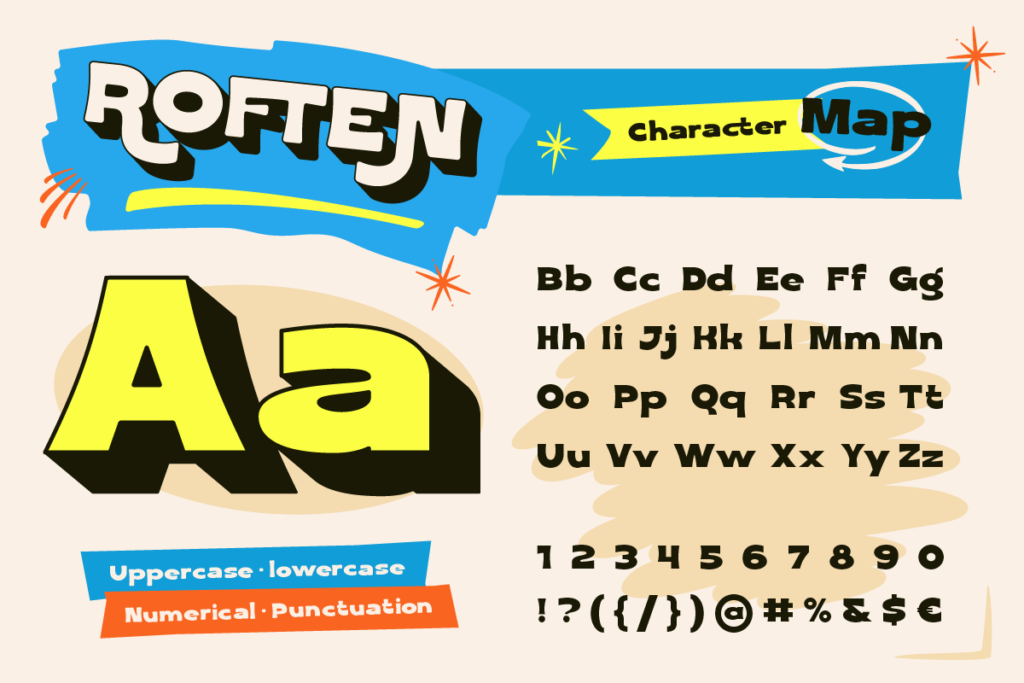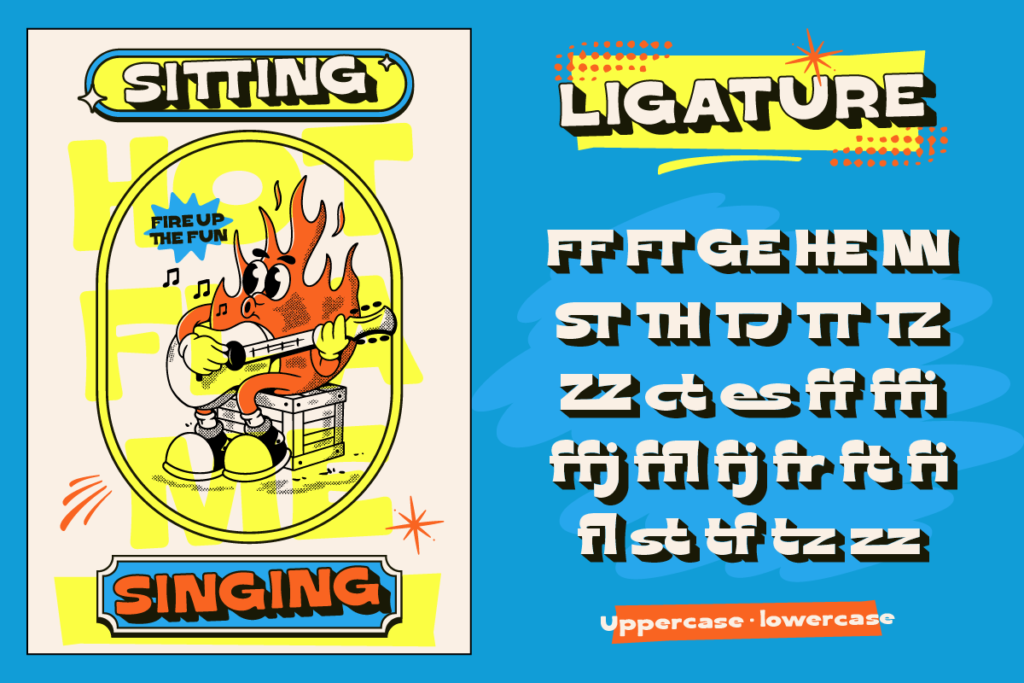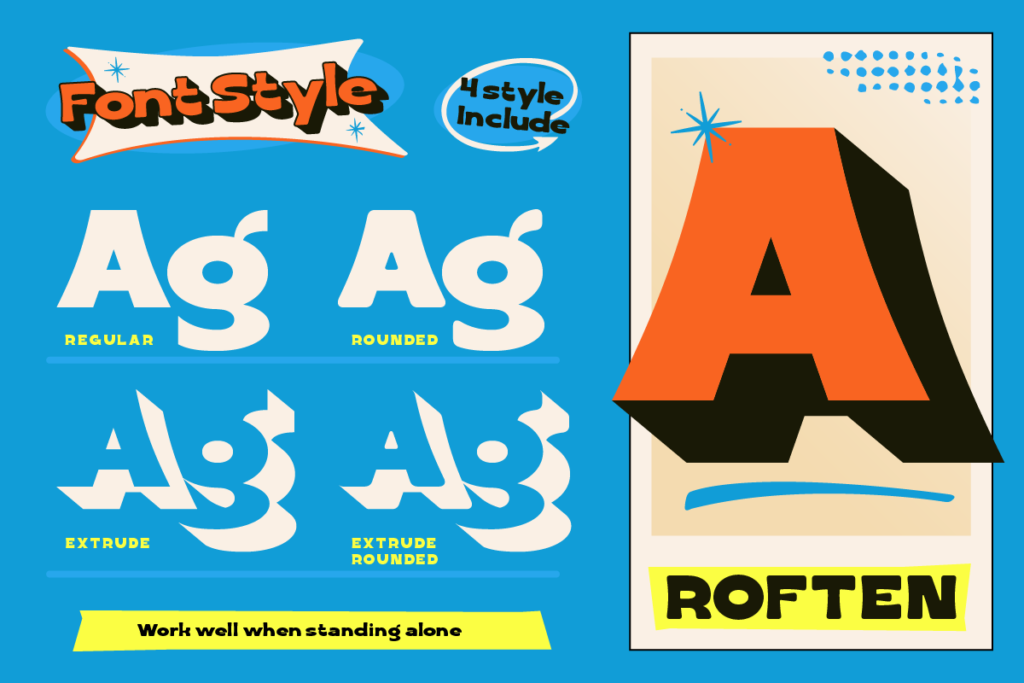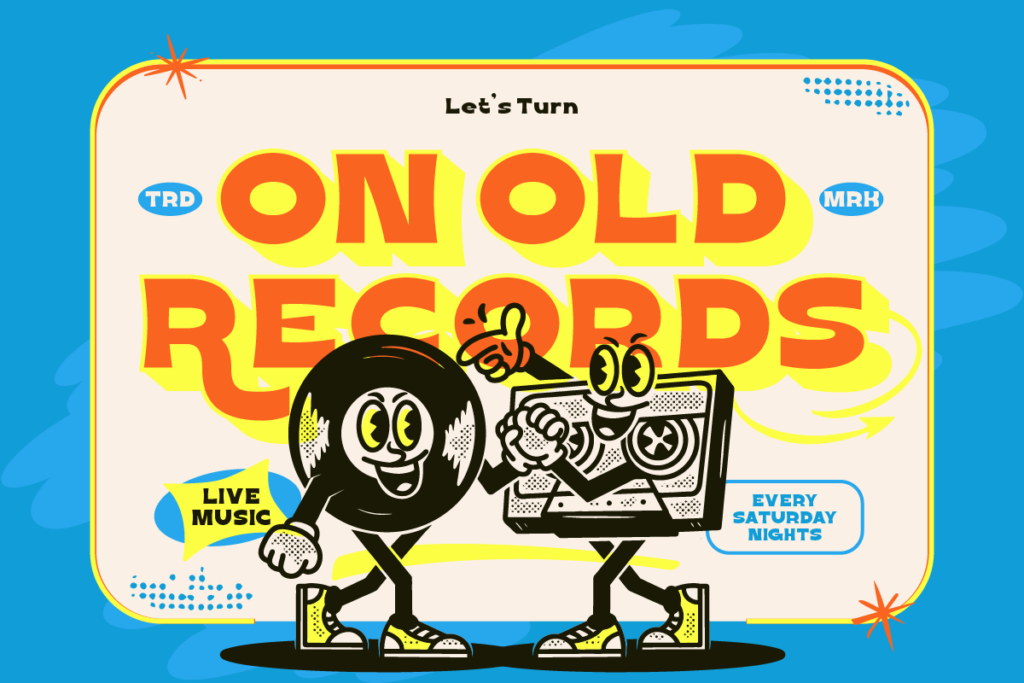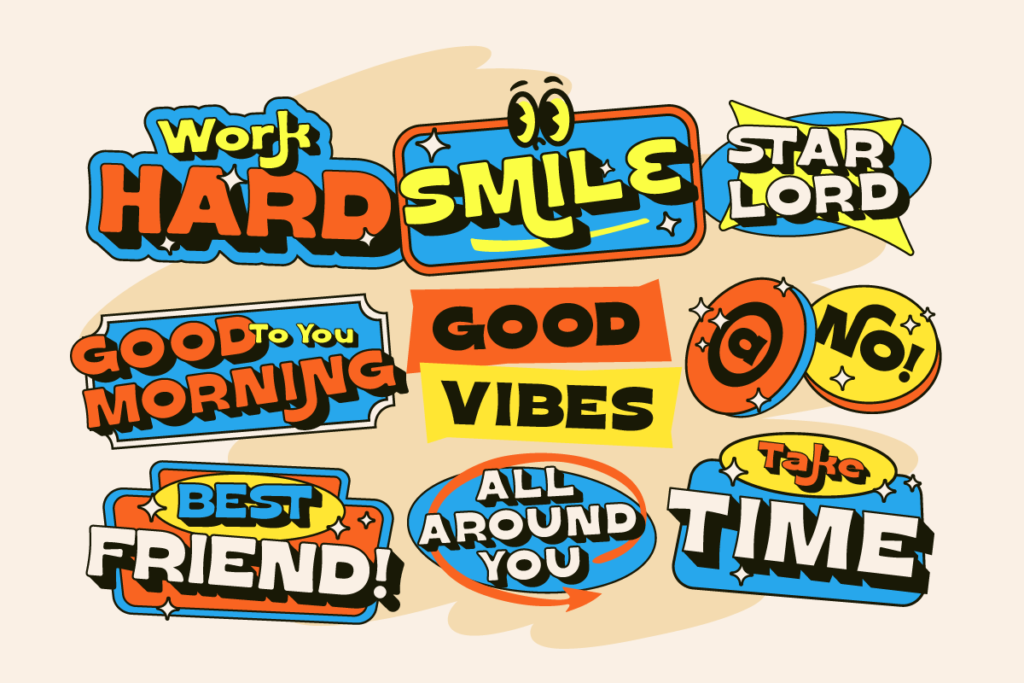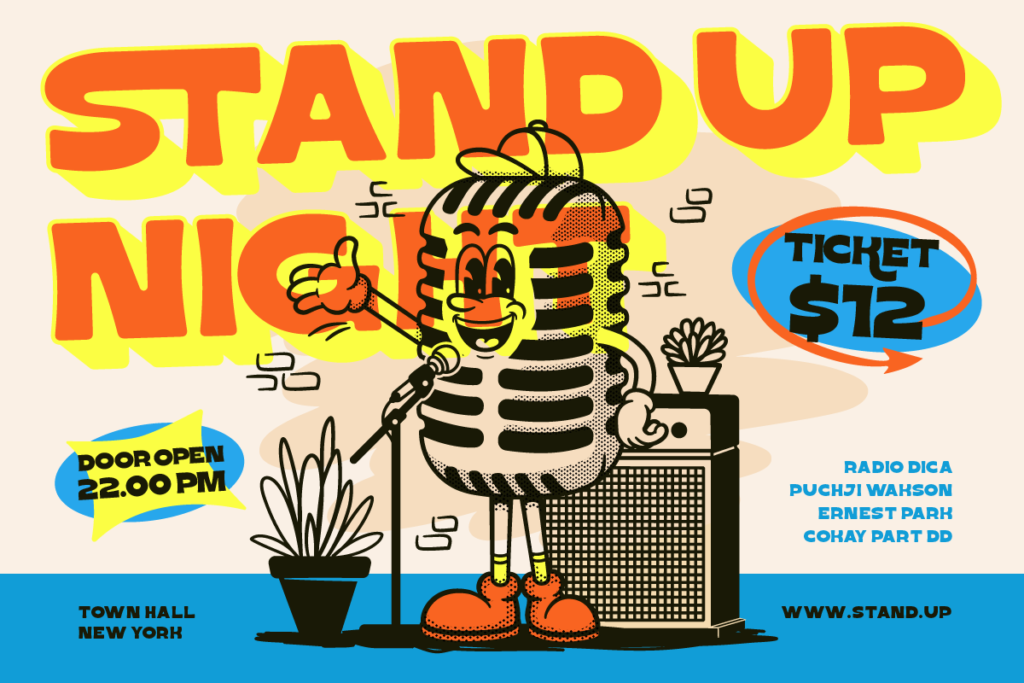
Nostalgic design is all about evoking emotion and bringing back good vibes. If you want your visual graphics to feel energetic, cheerful, and full of personality, a bold funky retro font is your best secret weapon.
Meet Roften, a playful typeface engineered to give your headlines that irresistible 70s pop-art energy!
The Unique Style and Character of Roften
Roften stands out immediately thanks to its heavy curves, chunky letterforms, and retro comic aesthetic. It is designed for creatives who want to make a statement without taking things too seriously.
This versatile font family includes four distinct styles:
- Roften Regular: A bold, clean retro look for classic vintage posters.
- Roften Rounded: Softened edges that create a friendly, approachable mood.
- Roften Extrude & Extrude Rounded: Built-in 3D effect styles that make your text pop off the screen instantly.
Because it offers built-in 3D extrude options, you do not need complex graphic software effects to create striking retro lettering.
Where to Use Roften in Your Creative Projects
Thanks to its bold pop-art charm, Roften performs exceptionally well across various fun mediums:
- Summer Festivals & Event Posters: Perfect for music concert flyers, food truck rallies, and beach party banners.
- Playful Apparel & T-Shirt Merch: Creates high-impact streetwear graphics, vintage hoodies, and tote bags.
- Snack & Beverage Packaging: Adds a lively, nostalgic touch to soda cans, candy wrappers, and ice cream tubs.
Additionally, it works wonders for social media quote graphics that need to stop the scroll.
Recommended Font Pairing
When styling a headline with Roften, balance is crucial. Because this funky retro font carries so much personality, keep your supporting body copy simple.
For instance, pair Roften headlines with a clean, neutral Sans Serif font for event dates, menu prices, or post captions. This combination keeps your layout organized while letting Roften shine as the hero element.